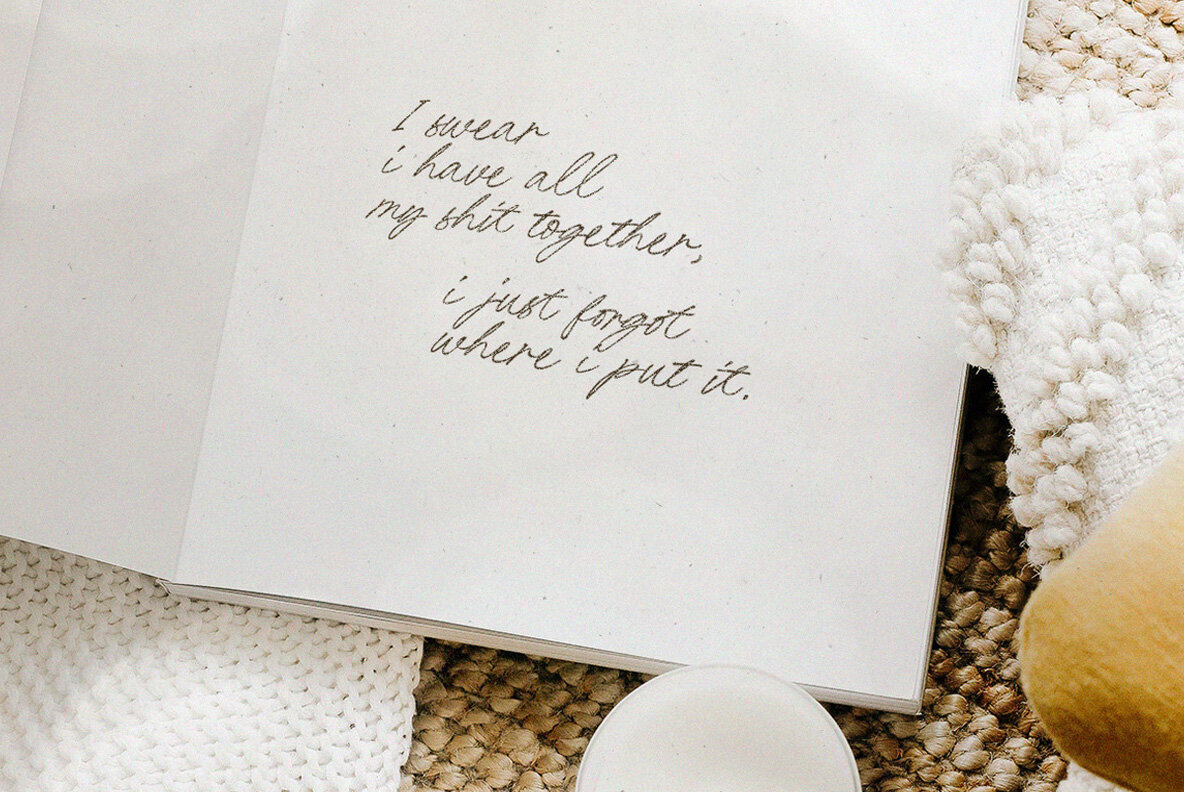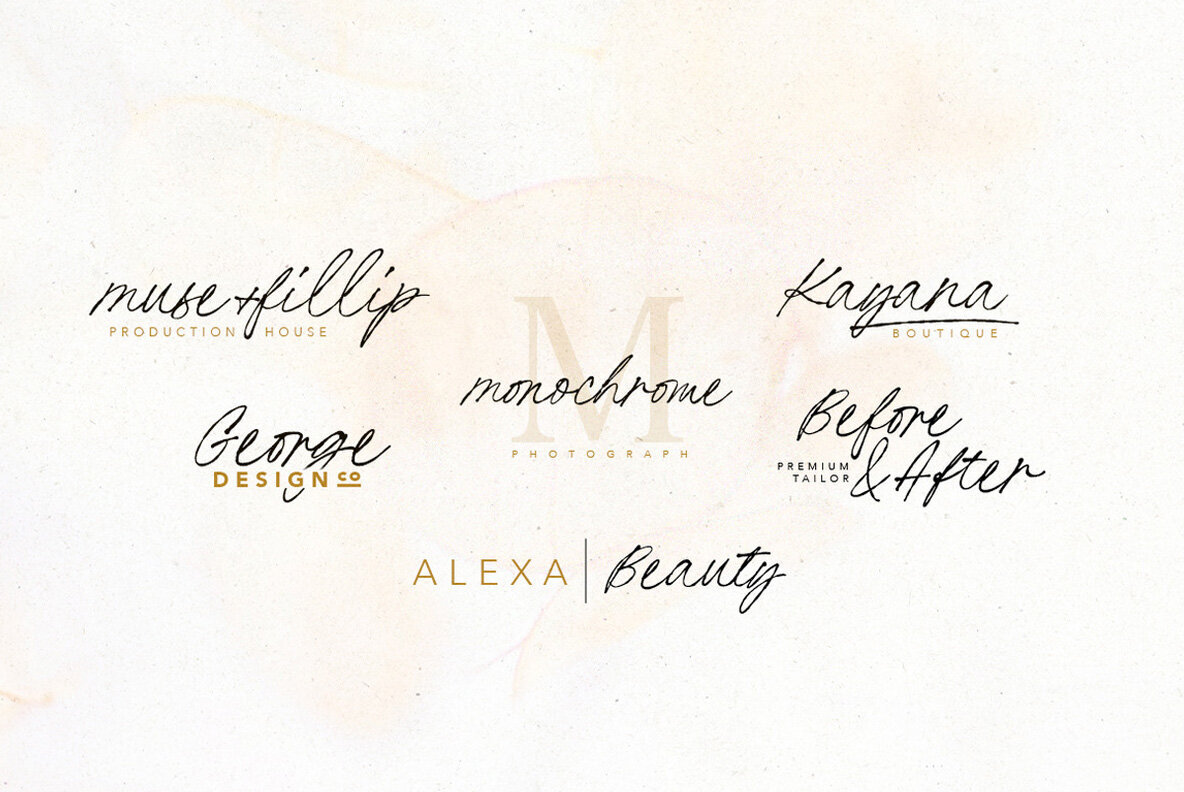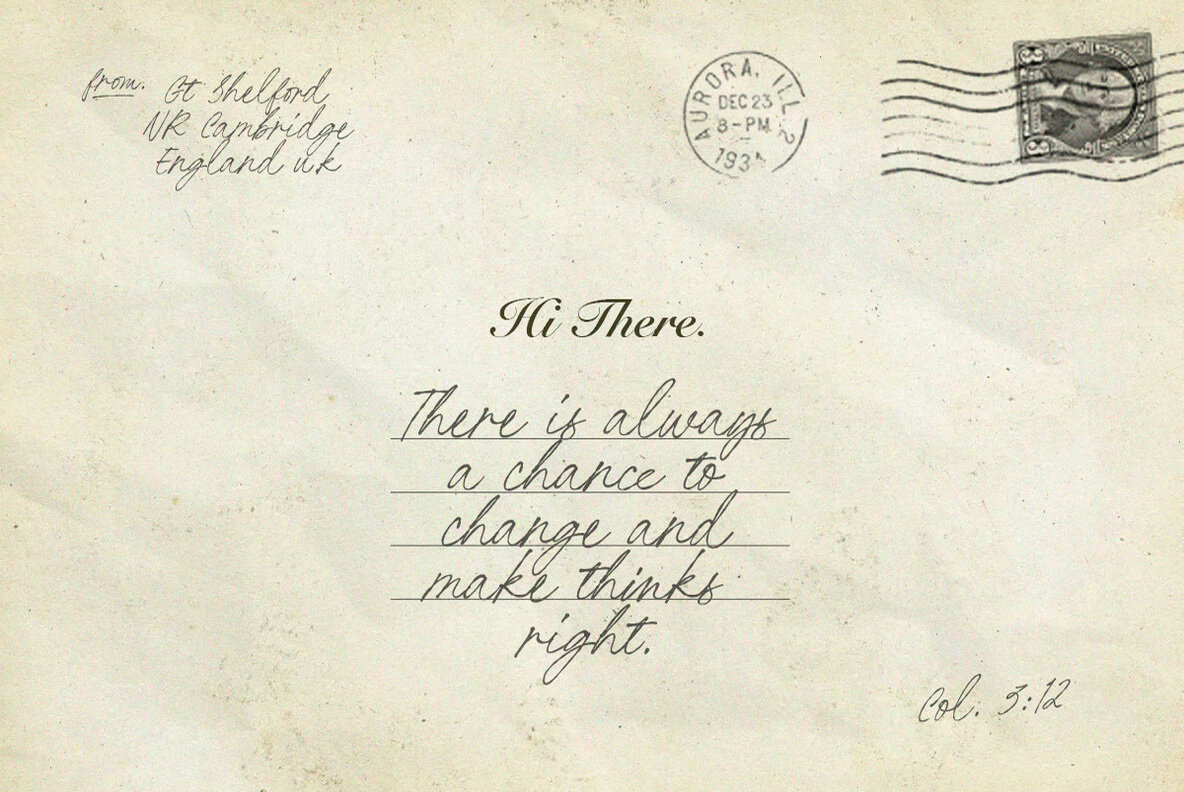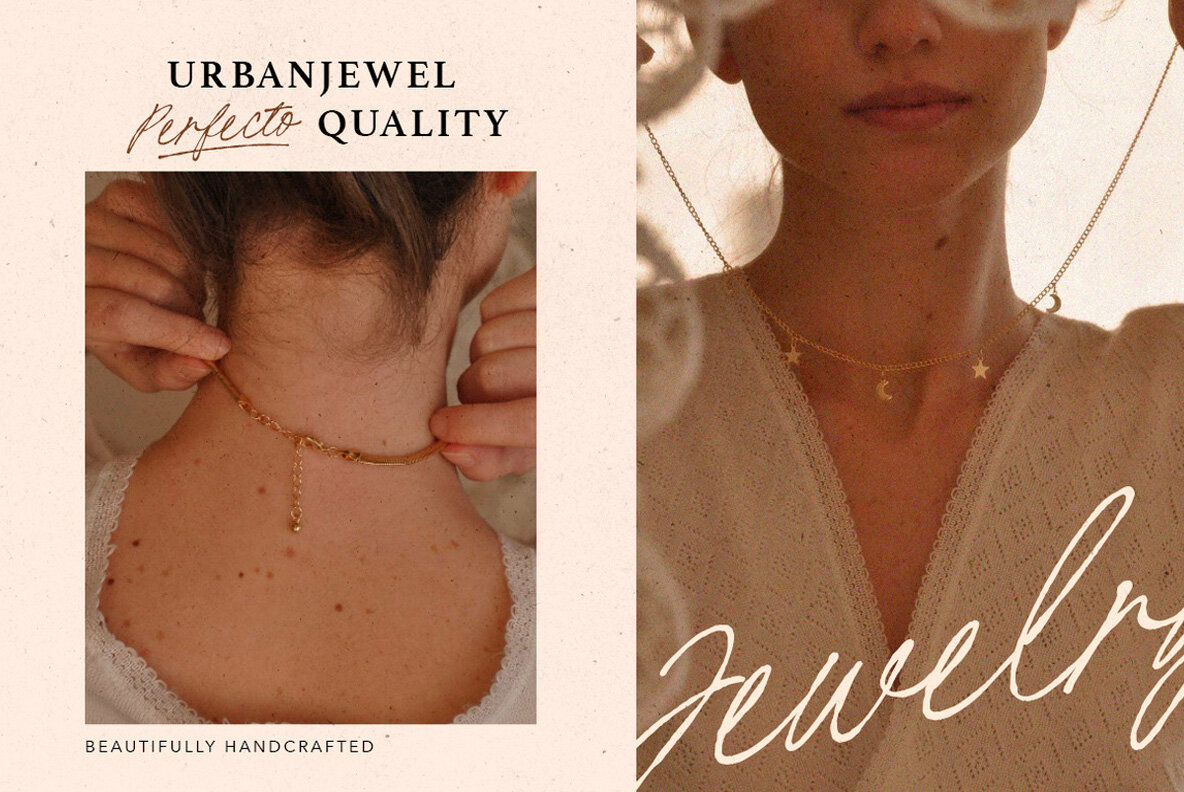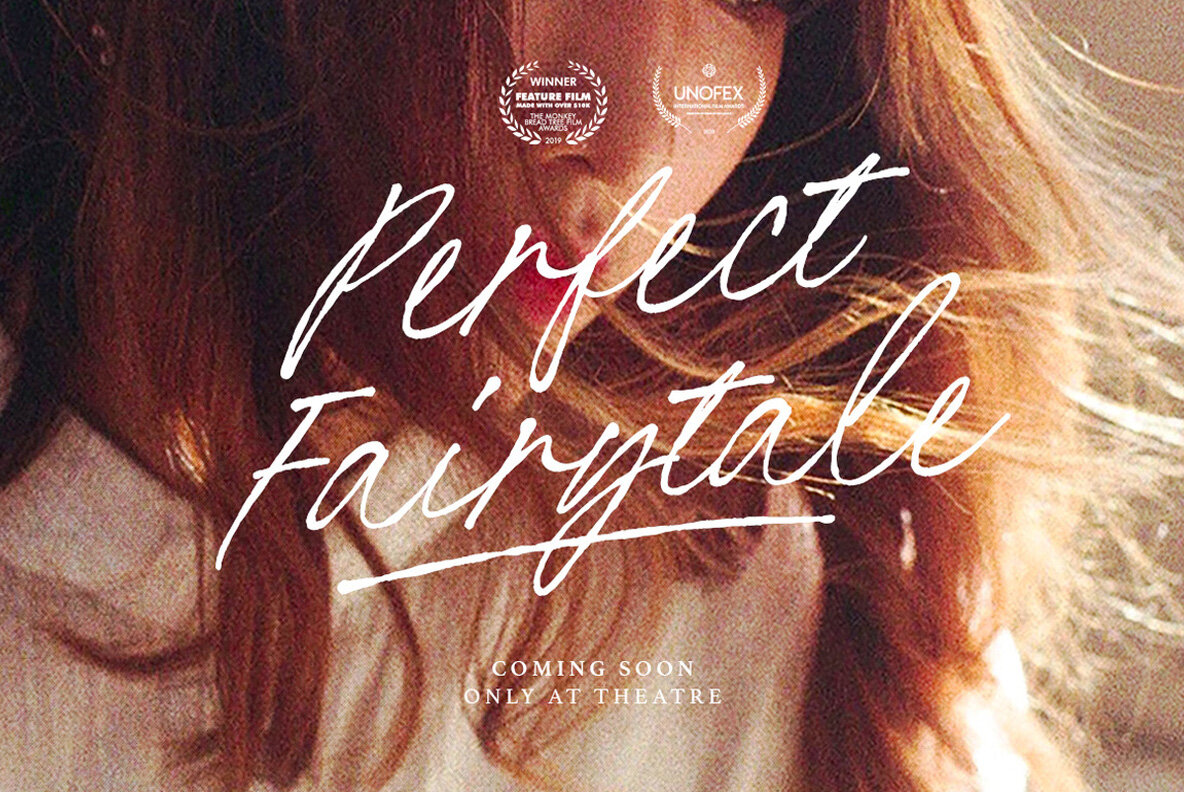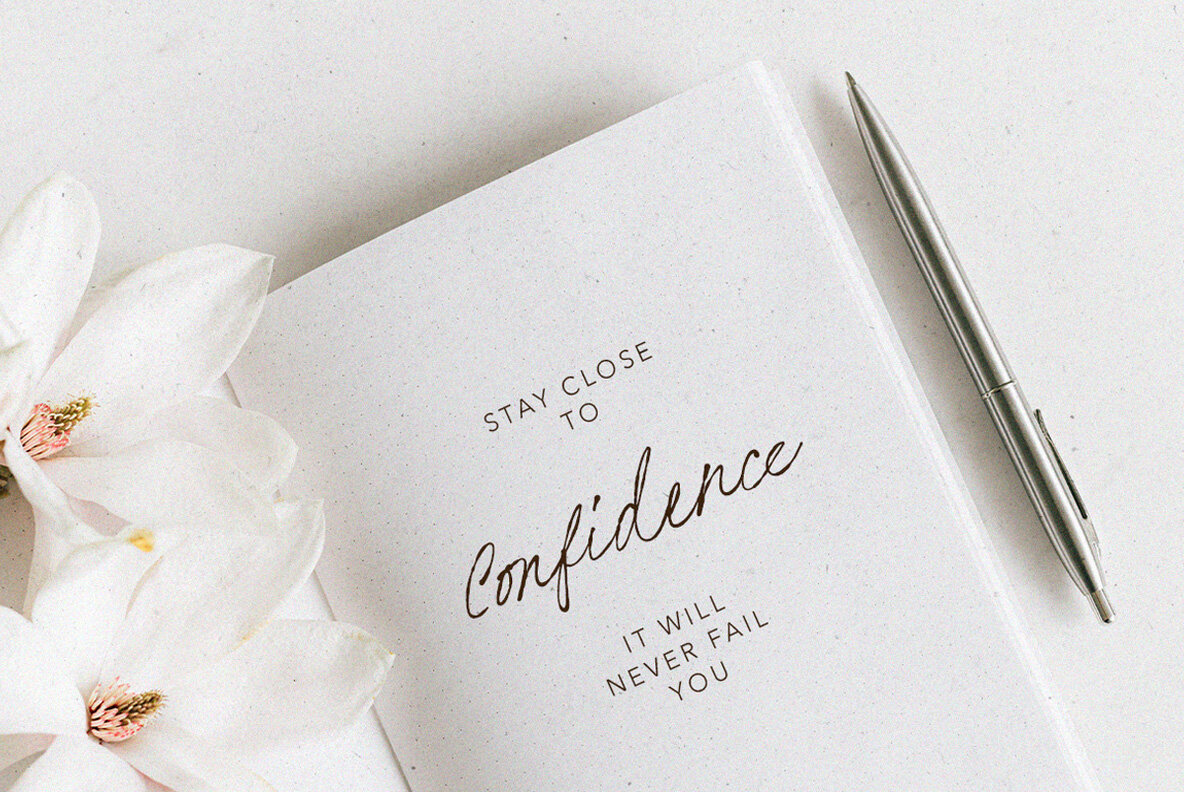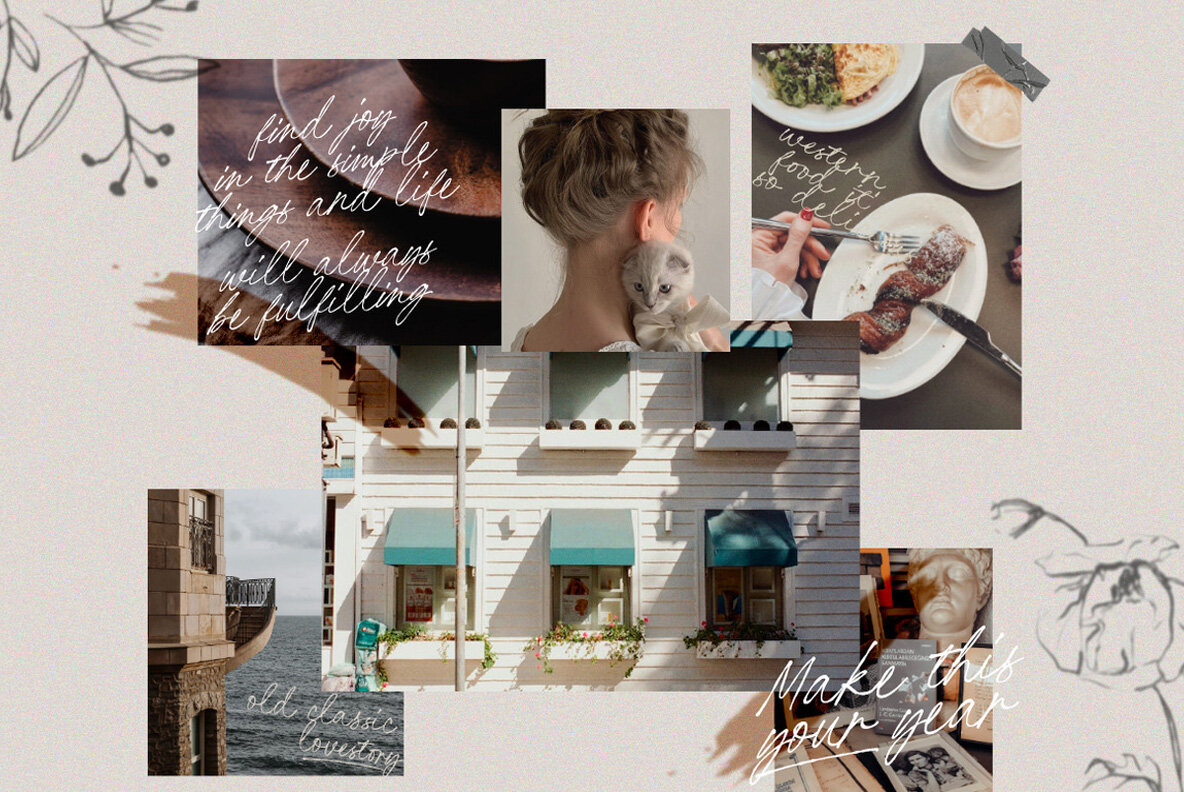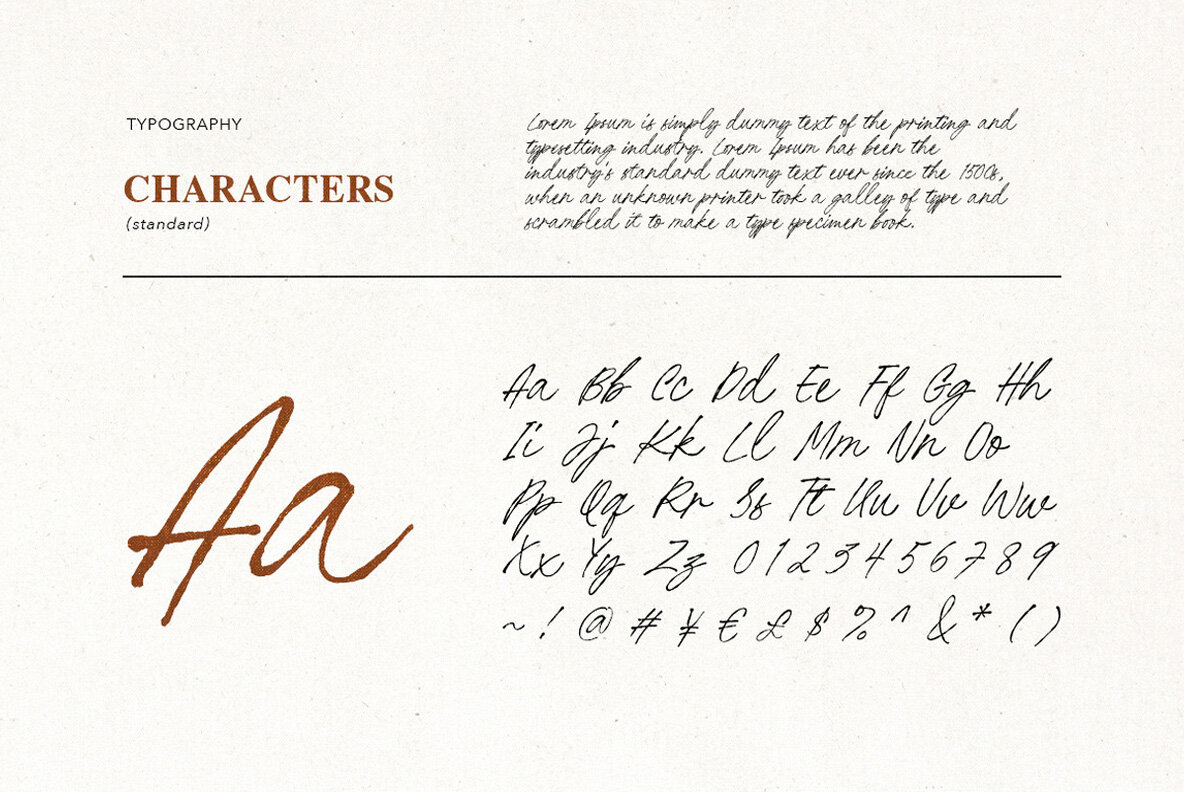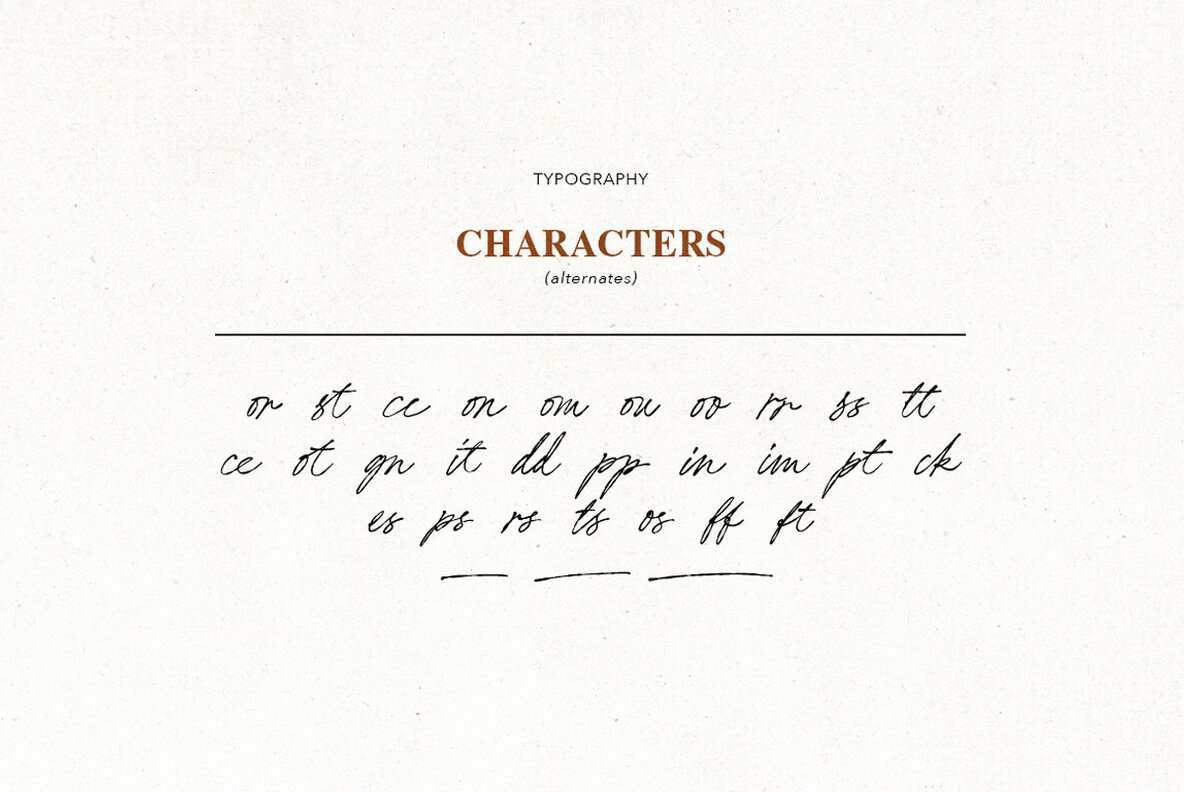
Minimalist Prints Font
Minimalist Prints Regular
Minimalist Prints is a simple and elegant signature script suitable for various purposes such as custom signatures, logo designs, and quotes. It pairs well with sans-serif and serif fonts, enhancing the versatility of your designs. This font includes beautiful ligatures available through OpenType features in Adobe, providing a natural look. Additionally, Minimalist Prints supports multiple languages.